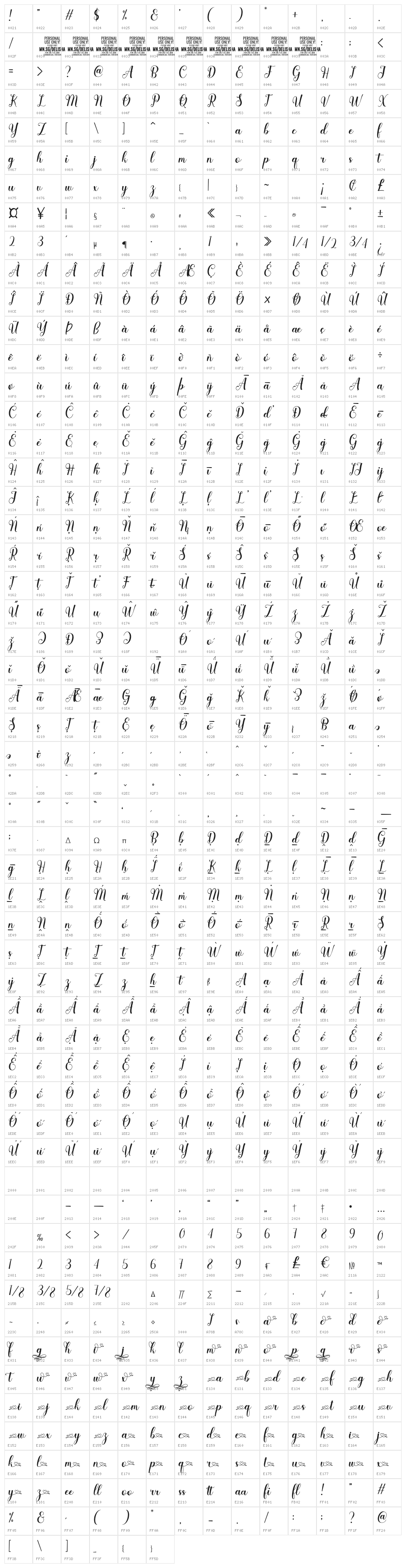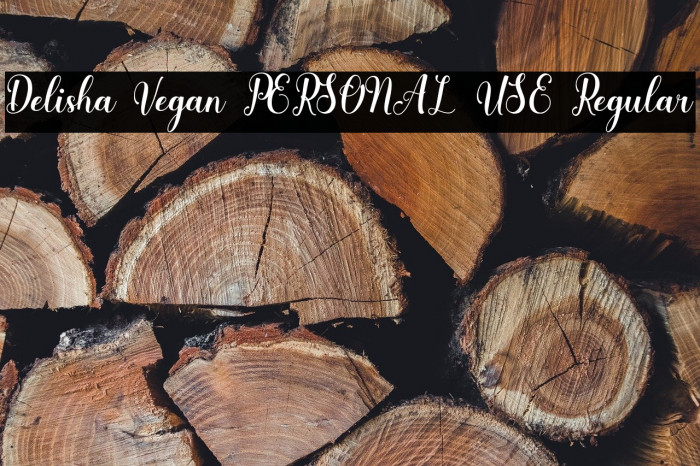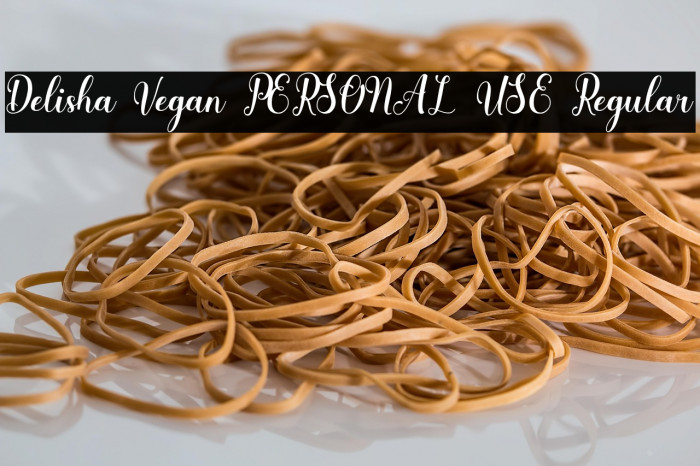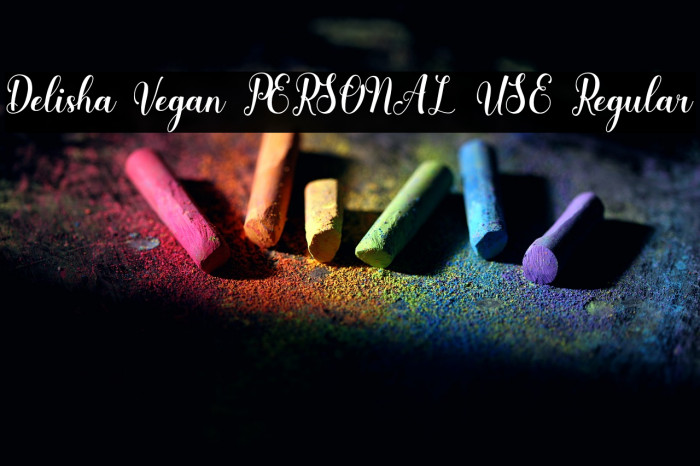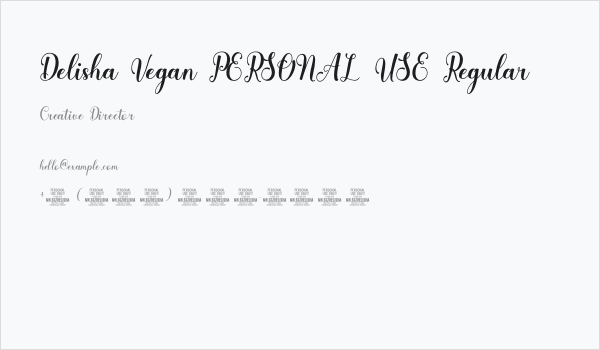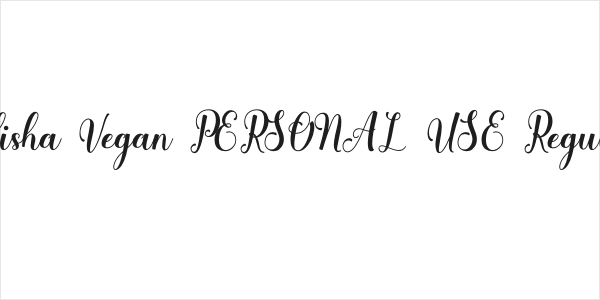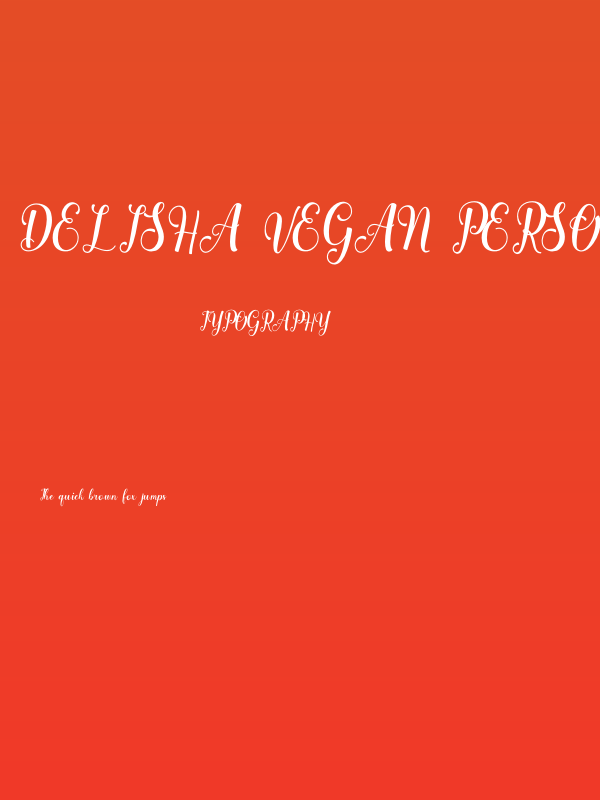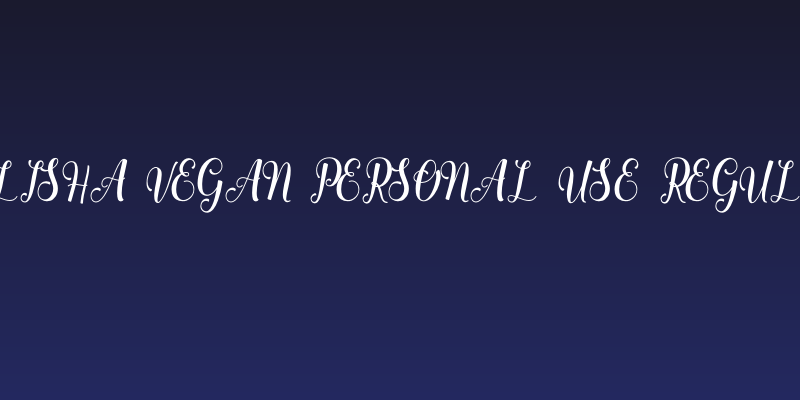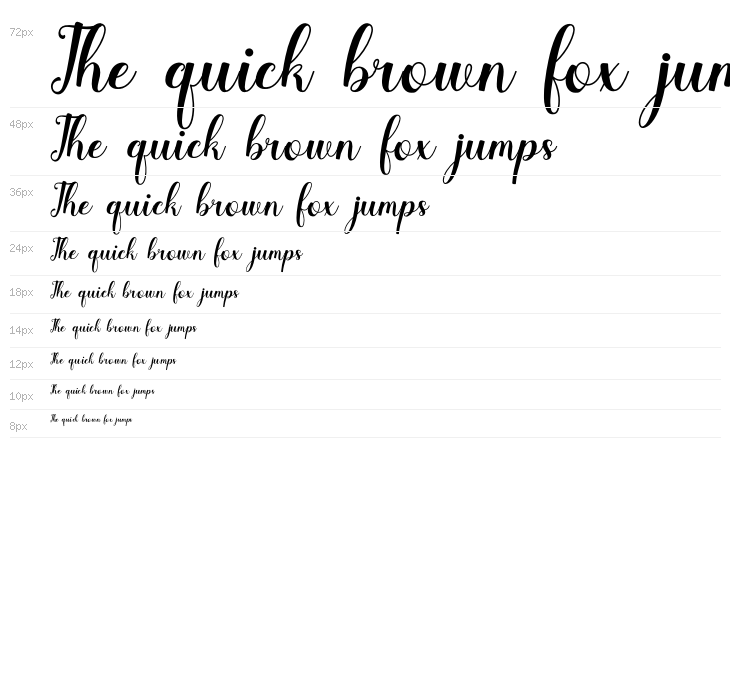
Delisha Vegan PERSONAL USE Regular Font
Delisha Vegan PERSONAL USE Regular Description
This font features an elegant and flowing script style, characterized by its smooth, cursive letterforms that convey a sense of sophistication and grace. The uppercase letters are tall and slender, with decorative loops and flourishes that add a touch of flair. The lowercase letters maintain a consistent flow, with gentle curves and connections that enhance readability while preserving the font's artistic appeal. The numerals and special characters are designed to complement the overall style, featuring similar curves and embellishments. This font is ideal for projects that require a touch of elegance and creativity, such as wedding invitations, branding, and decorative signage.
| Overall Style | Elegant, Decorative |
| Proposed Projects | Wedding invitations, branding, decorative signage, greeting cards, and logos. |